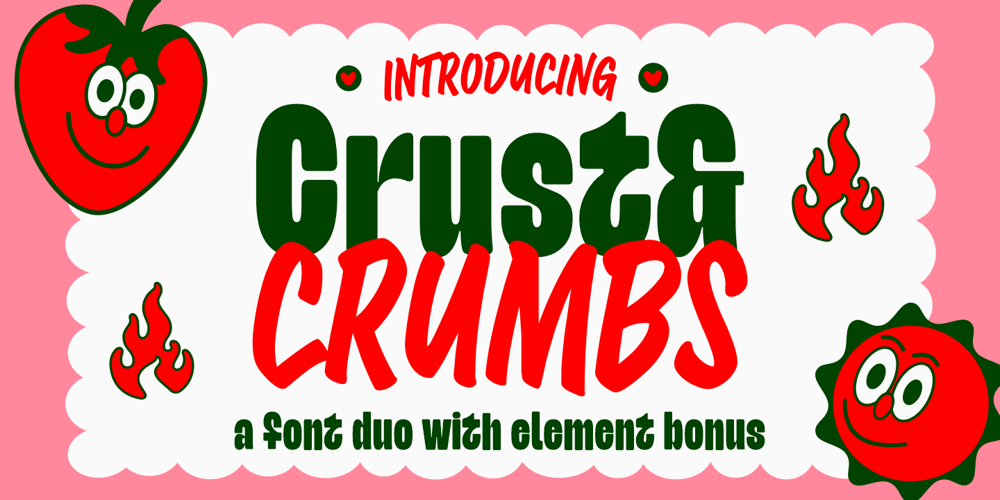
Crust and Crumbs Brush
Crust and Crumbs Brush font
Crust and Crumbs Brush Font Family was designed by Nurul Fajri Redy and published by Redy Studio. Crust and Crumbs Brush contains 2 styles and family package options. Discover the perfect pairing for your culinary creations with the Crust and Crumbs Foodie Font Duo, featuring a harmonious blend of rounded sans-serif and expressive brush fonts. Whether you’re a food blogger, restaurant owner, or a passionate home cook, this font duo is designed to add a delectable touch to your food-related designs.Feel free to give me a message if you have a problem or question. Thank you so much for taking the time to look at one of our products. ~Redy